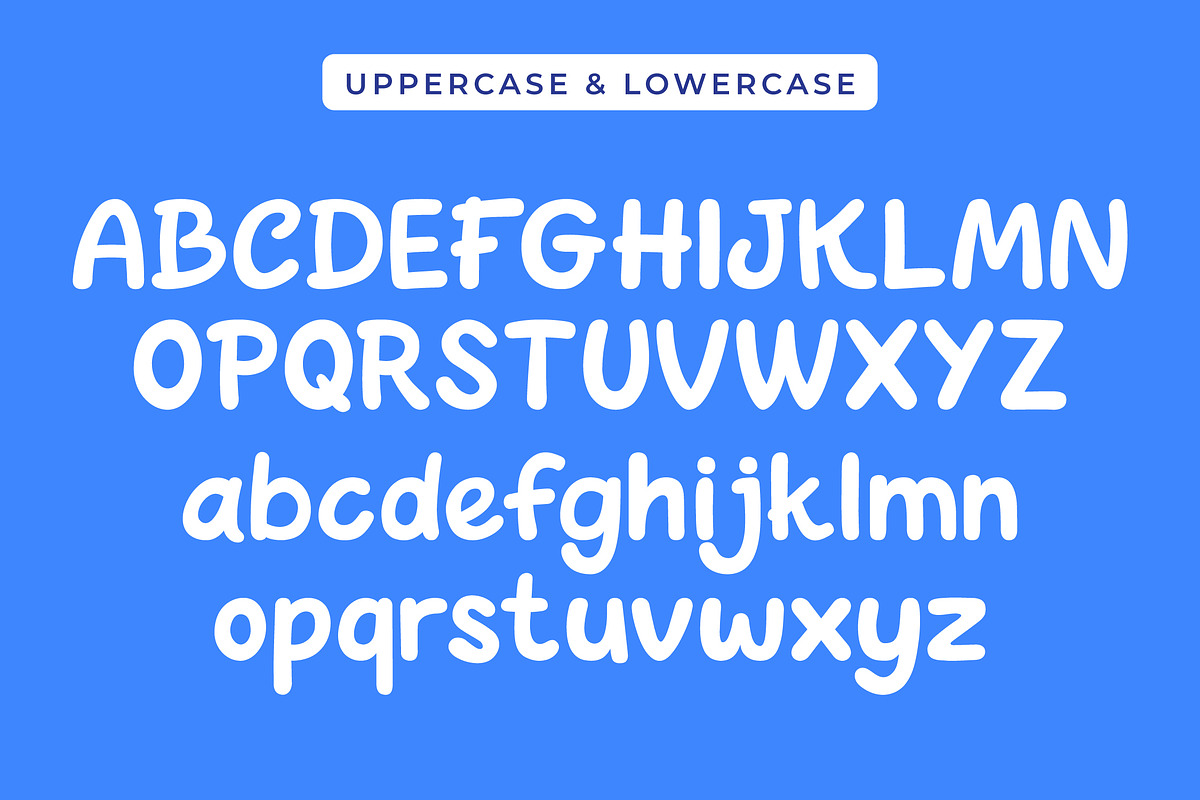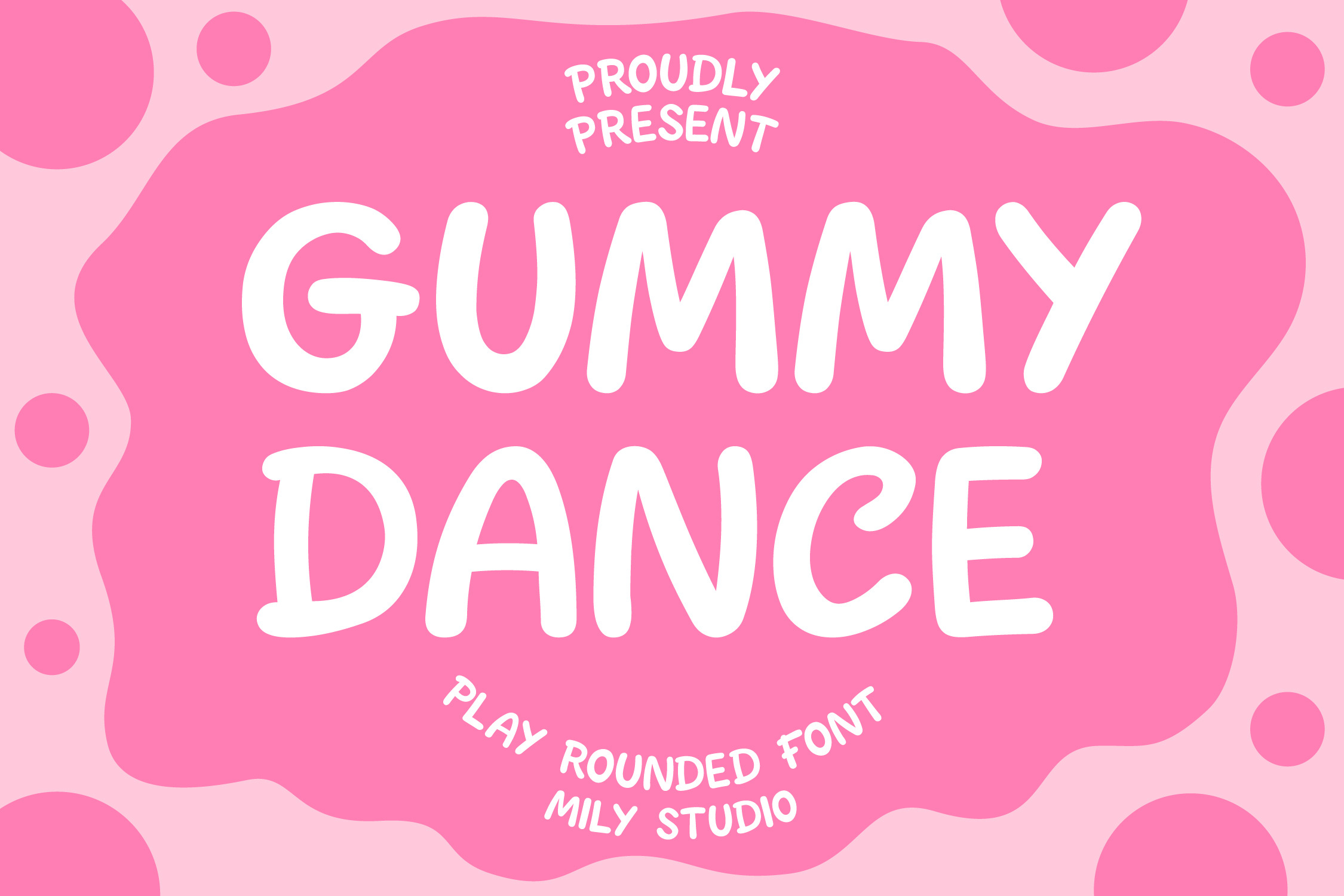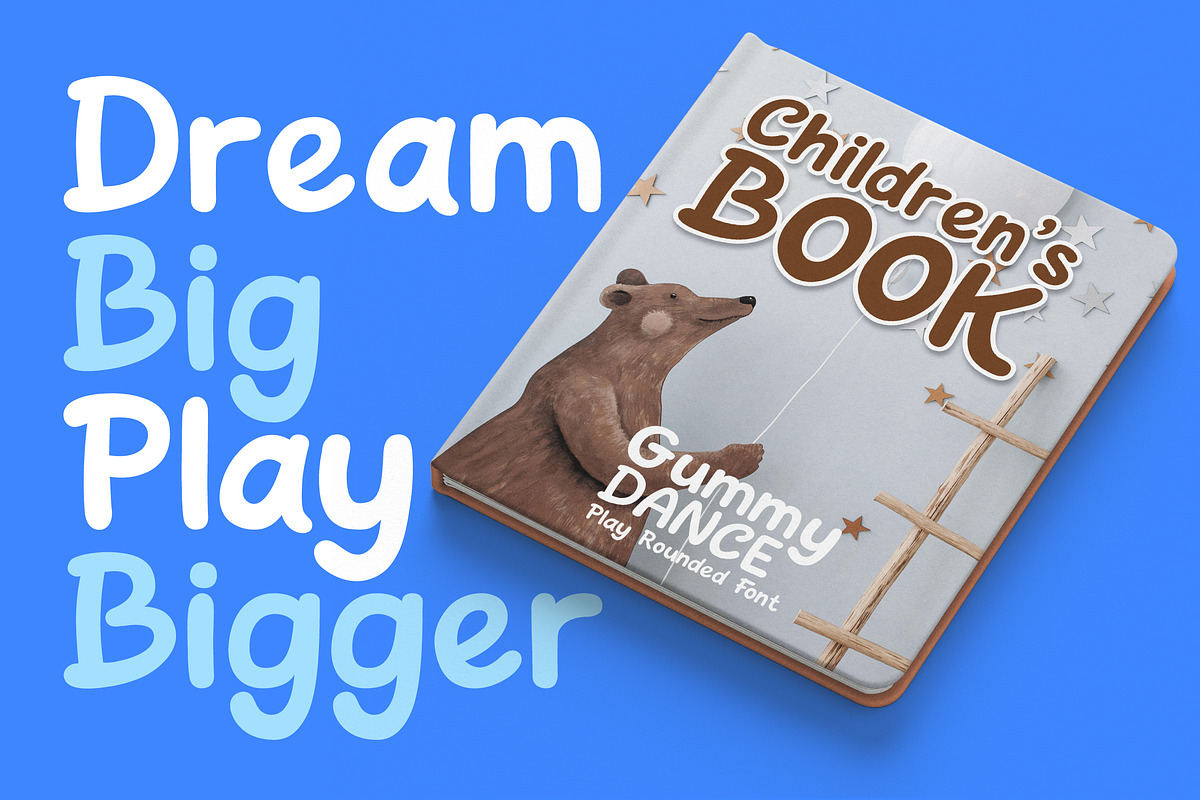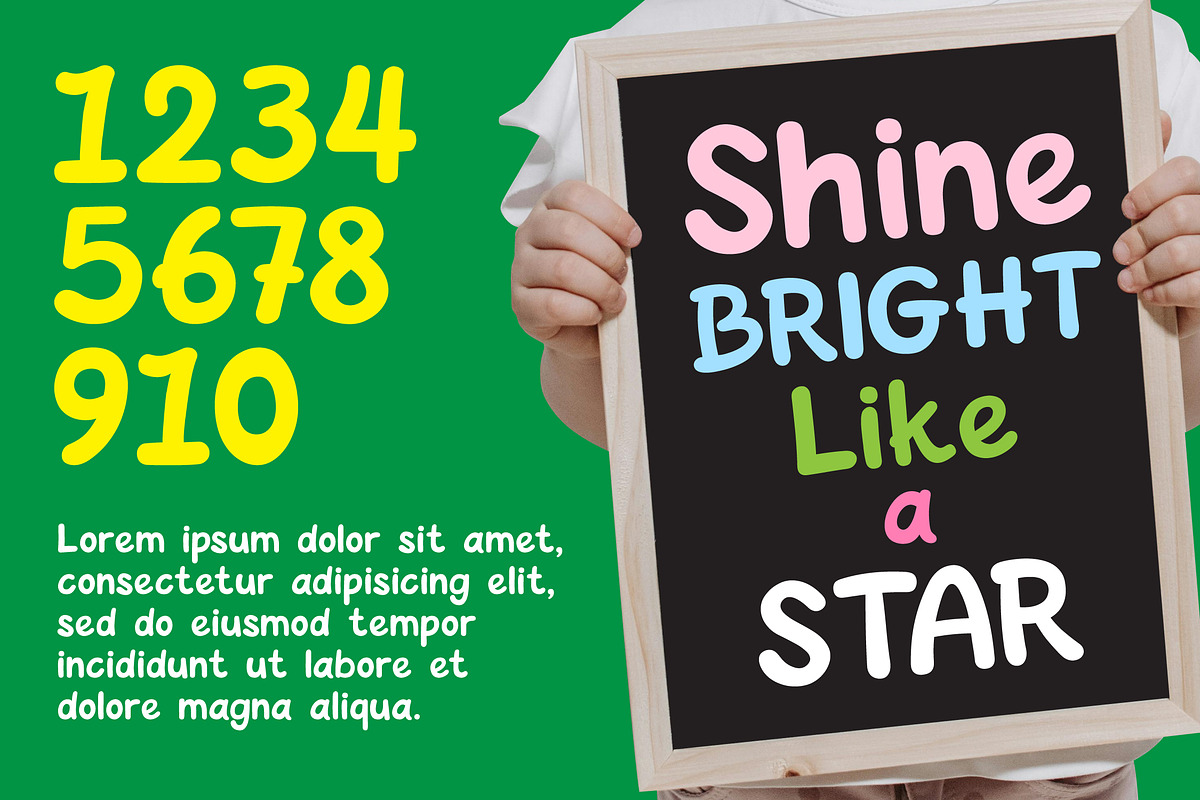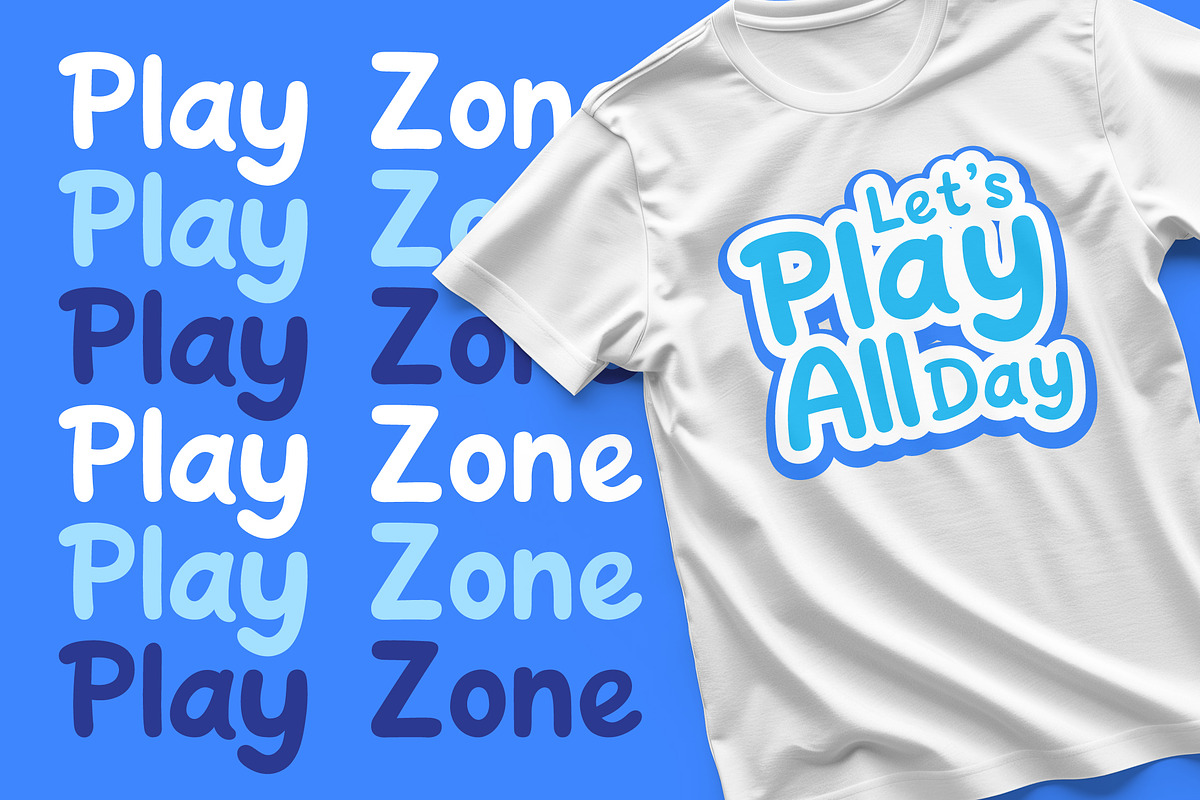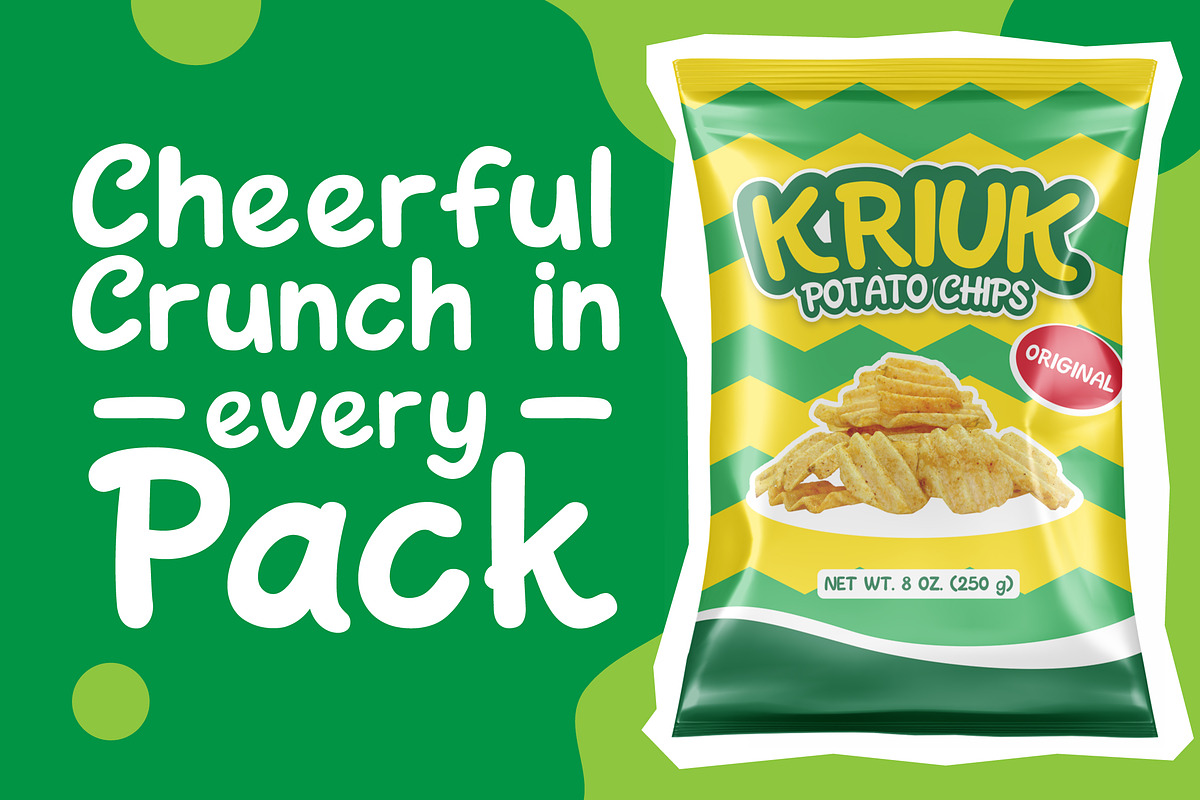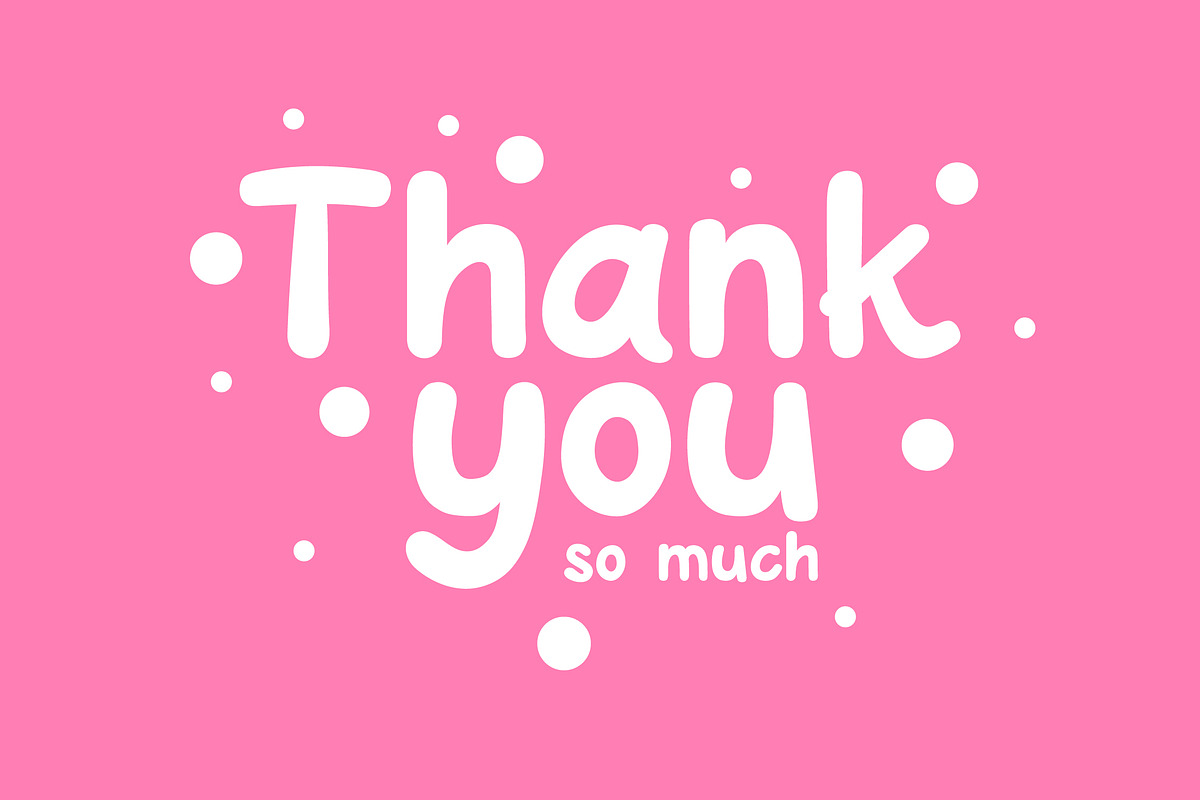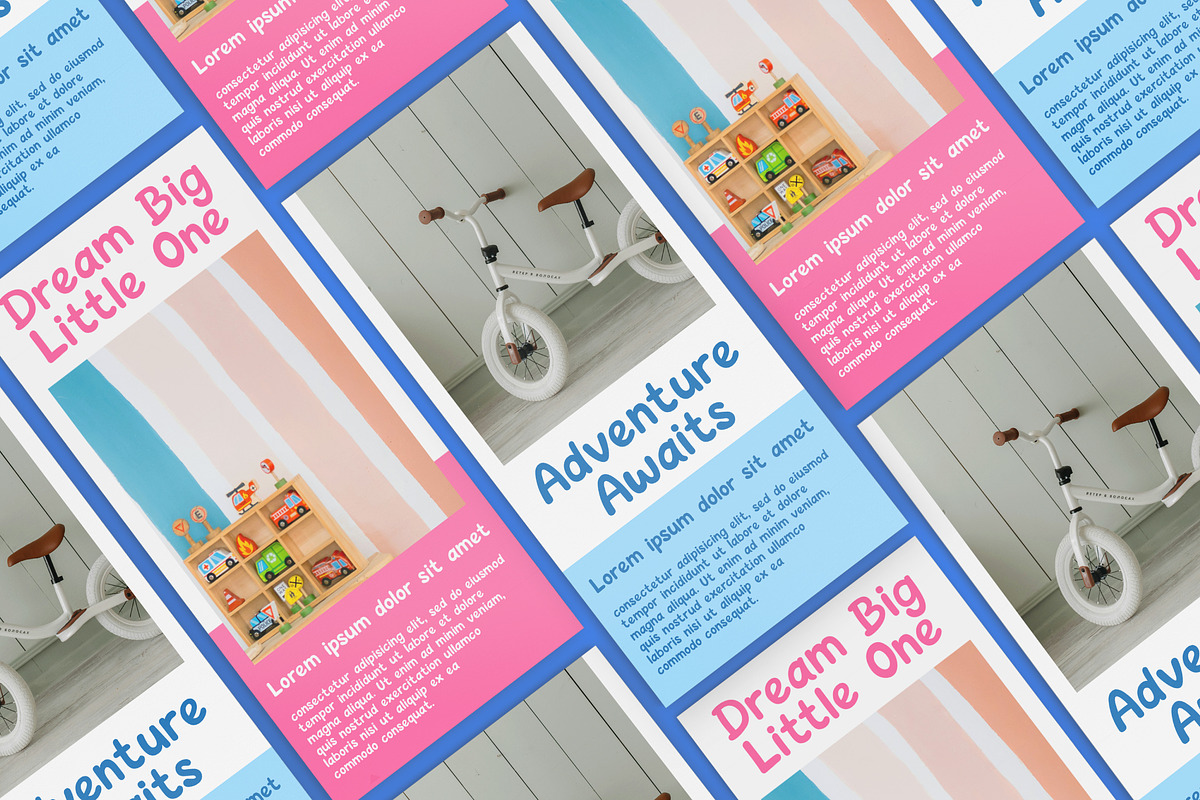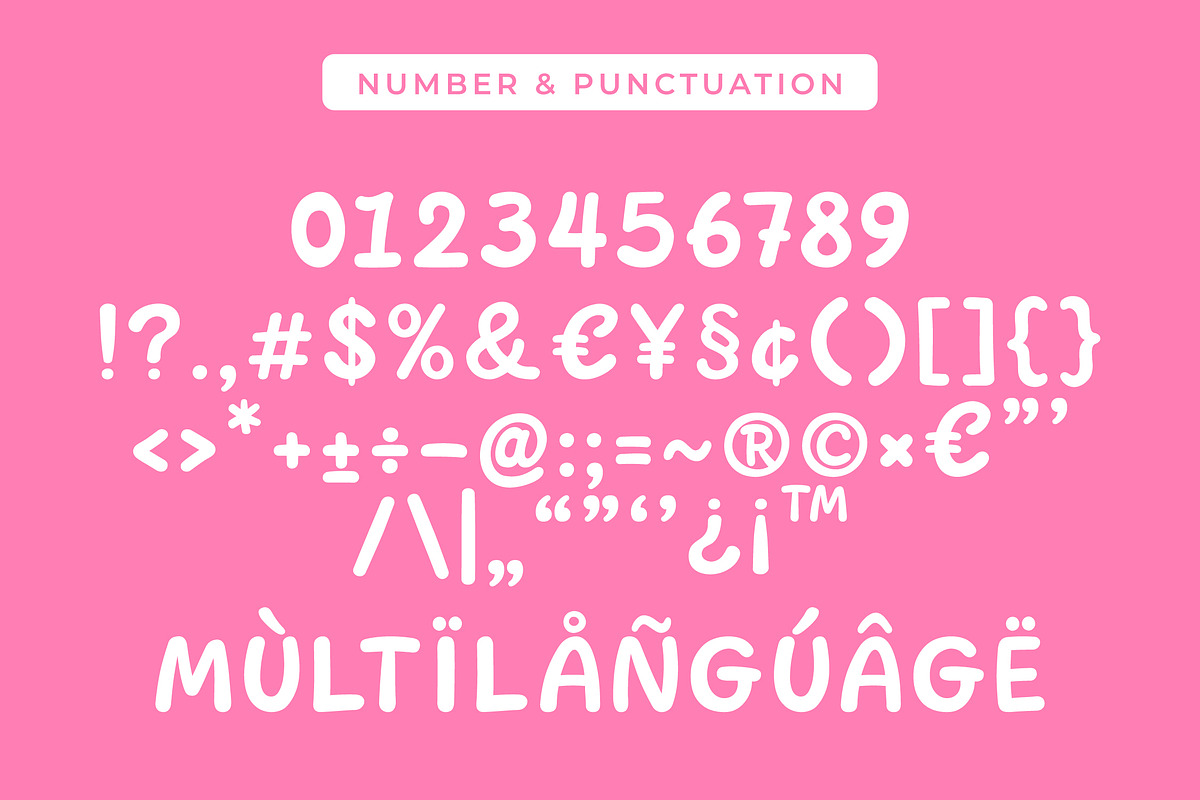
Gummy Dance - Display Font
Gummy Dance is a fun and playful rounded font designed to spark joy in every letter. With its soft curves and bubbly shapes, this font feels friendly, lighthearted, and full of energy. It’s perfect for children’s books, toy packaging, birthday invitations, logos, and anything that needs a cheerful touch. Inspired by candy, cartoons, and the happiness of childhood, Gummy Dance adds a lively vibe to your creative work. Let your words dance and smile with this charming, feel-good font.
- Multilanguage